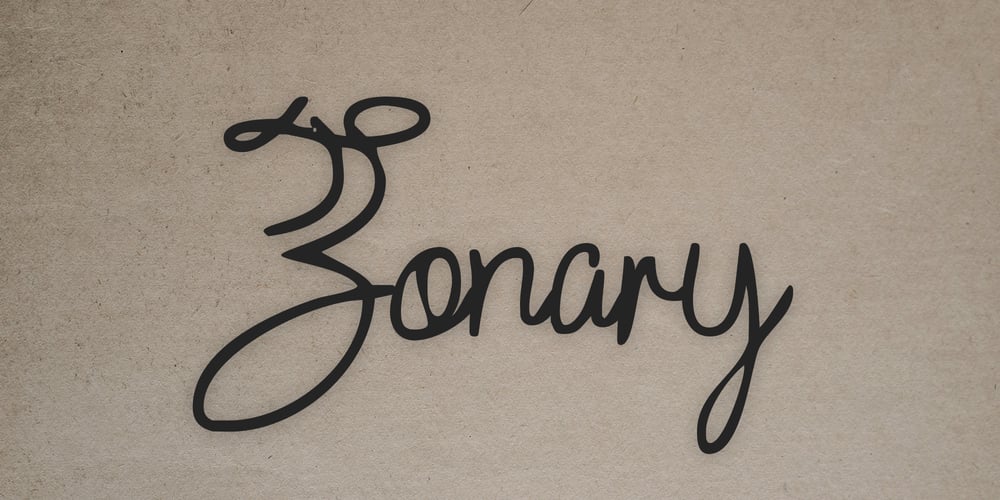
Zonary Font Family was designed by Zuhayr Zunayra and published by ZorkSlide. Zonary contains 4 styles and family package options. Introducing our new script handwriting font, featuring a total of four distinct typefaces. Each typeface captures the essence of elegant and natural handwriting, perfect for adding a personal touch to your designs. Whether you’re crafting invitations, branding, or social media graphics, this font brings a warm and authentic feel to your work.